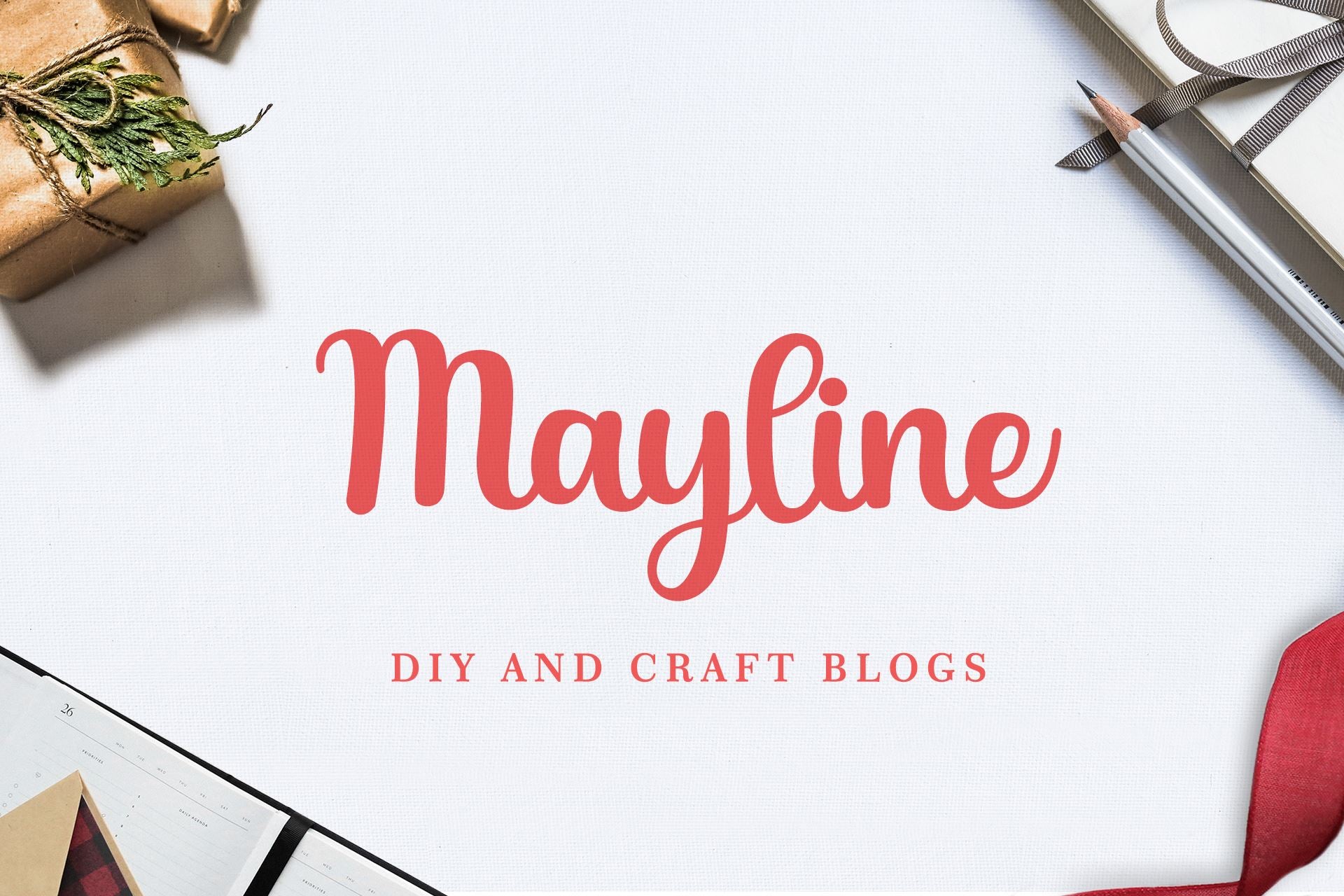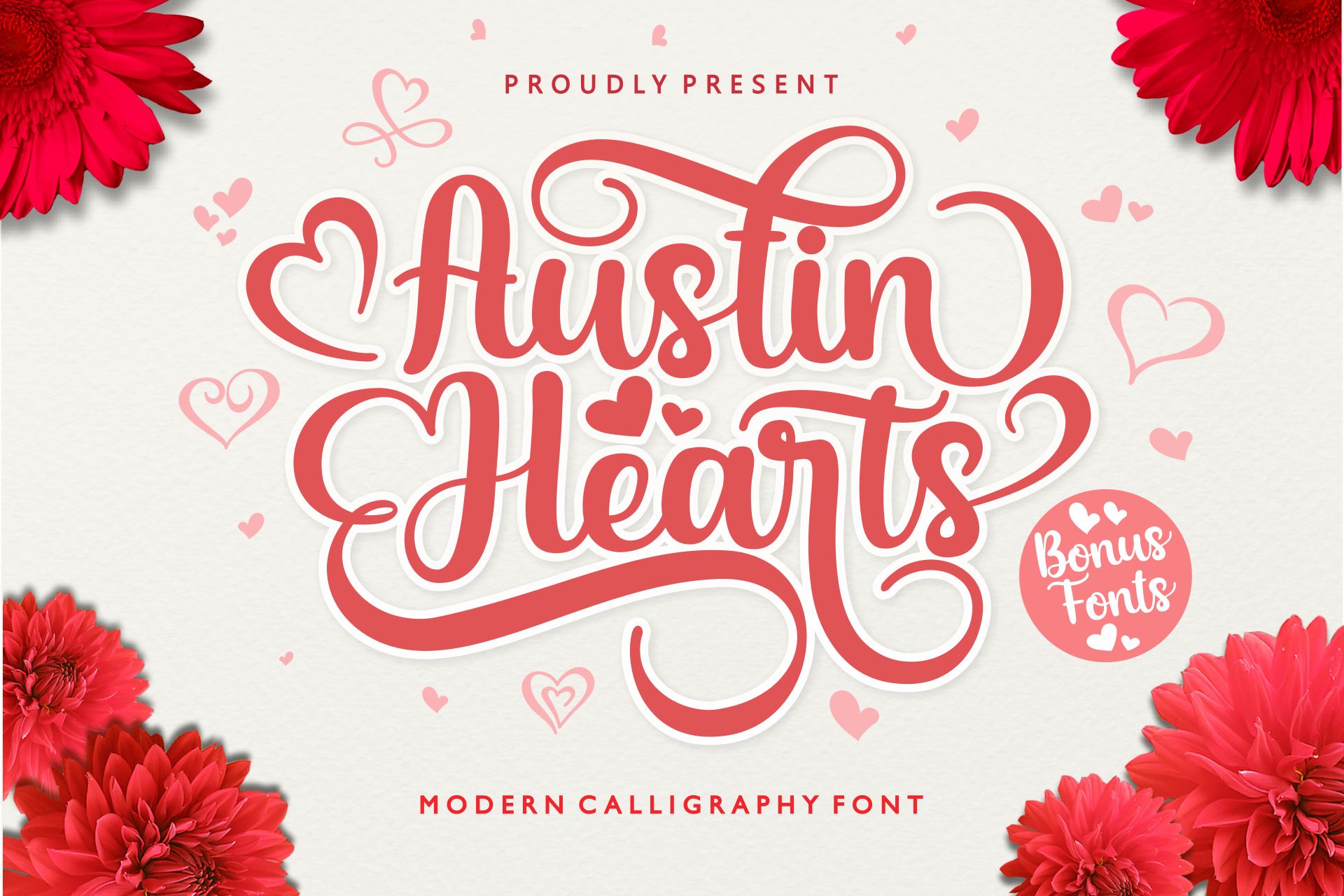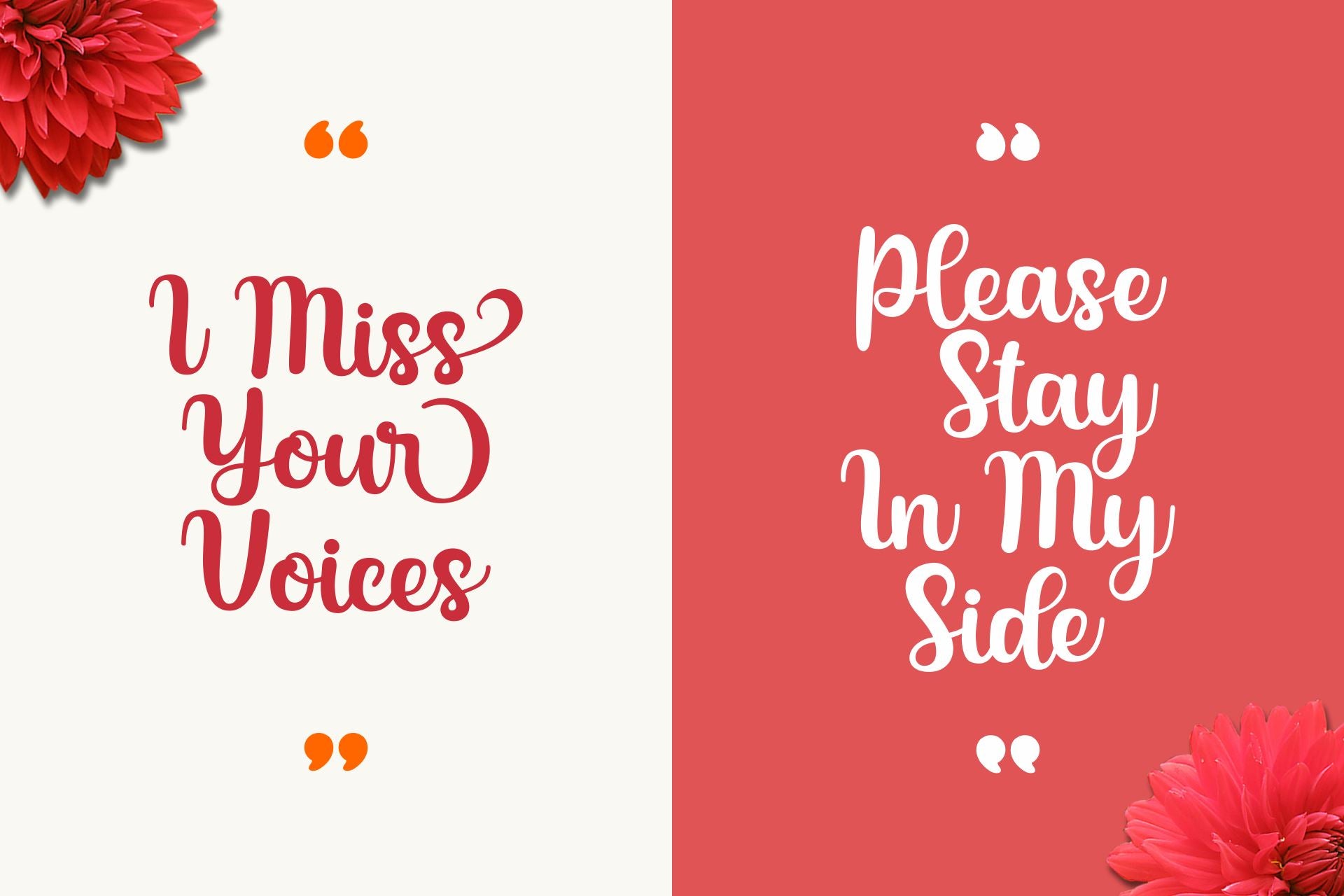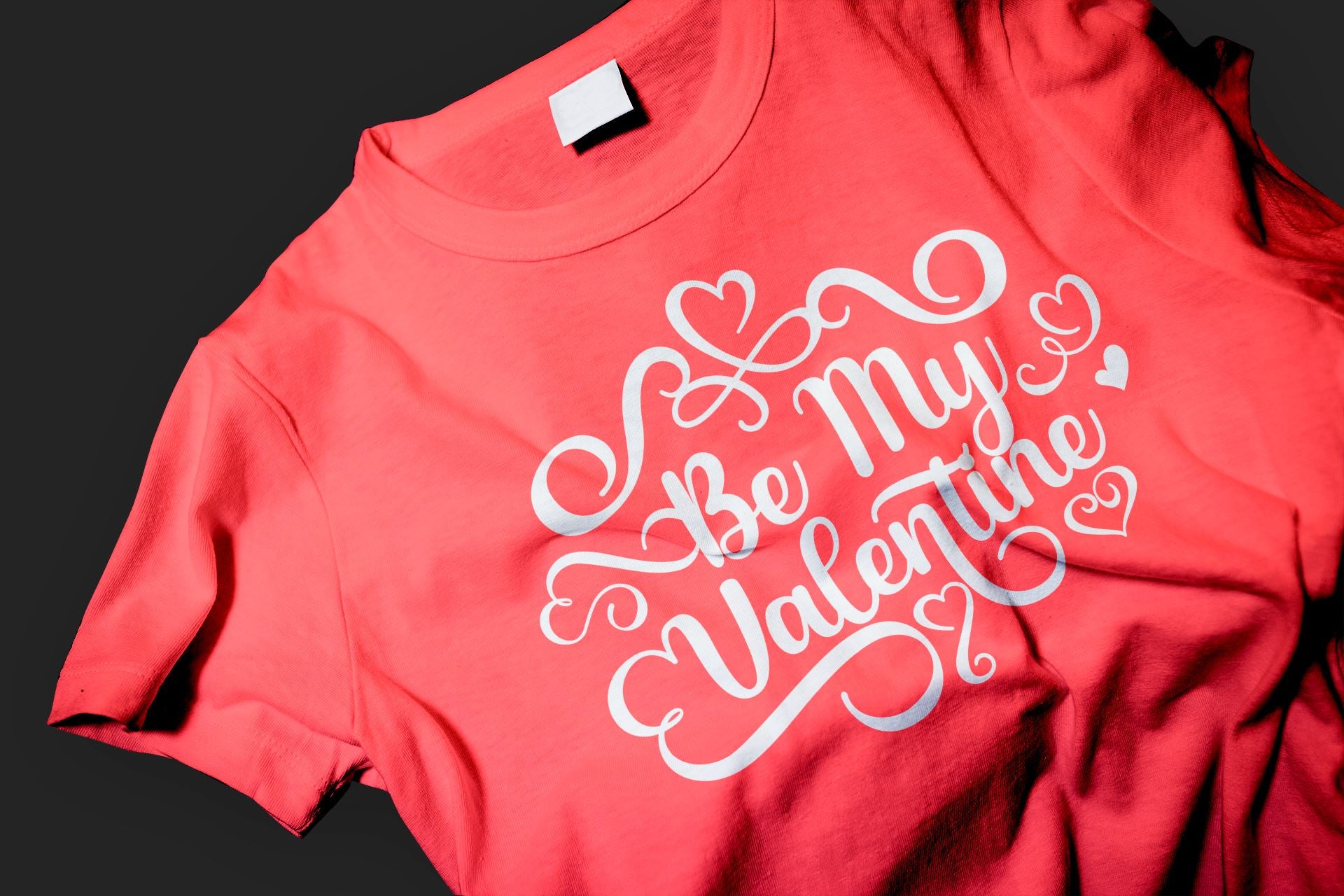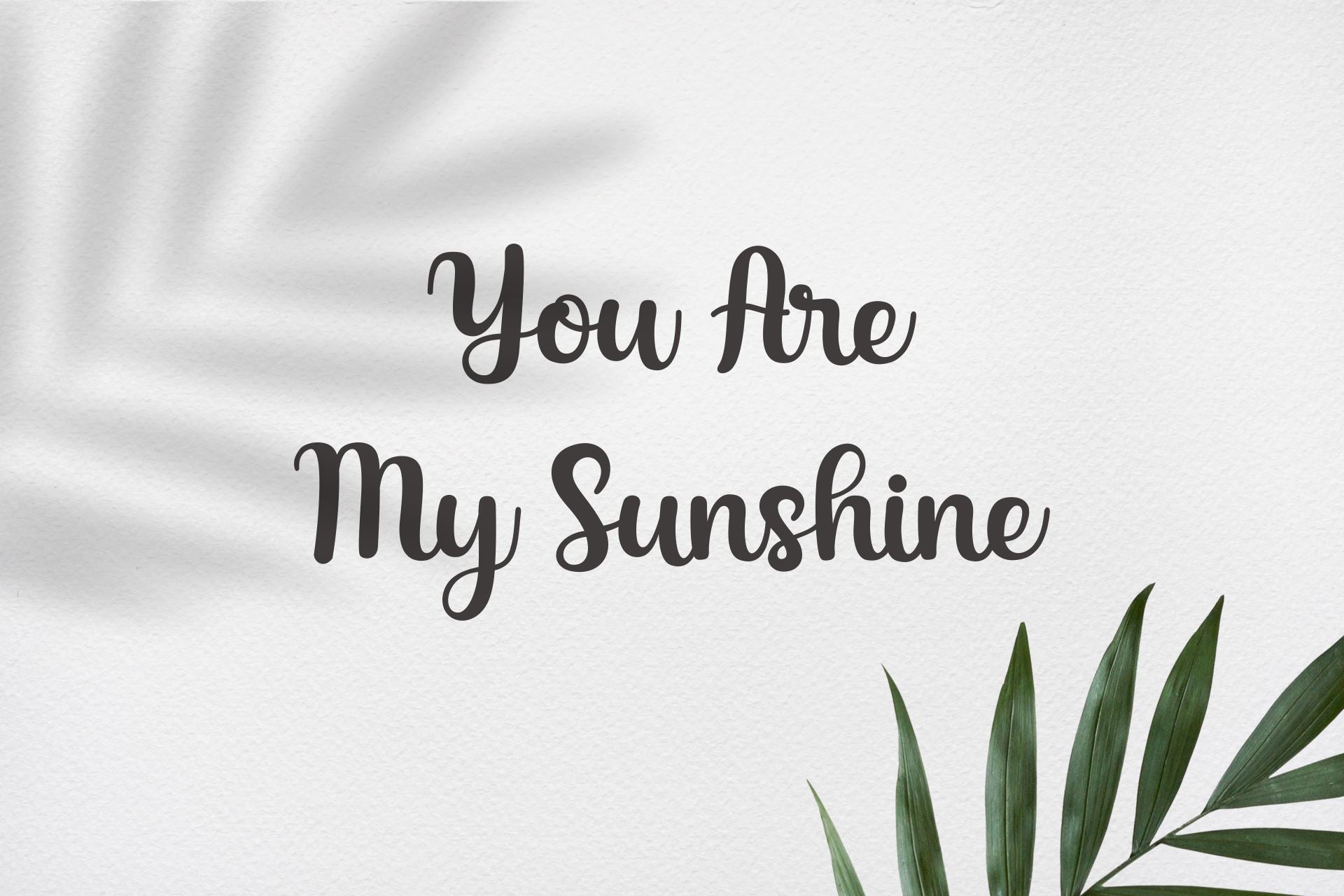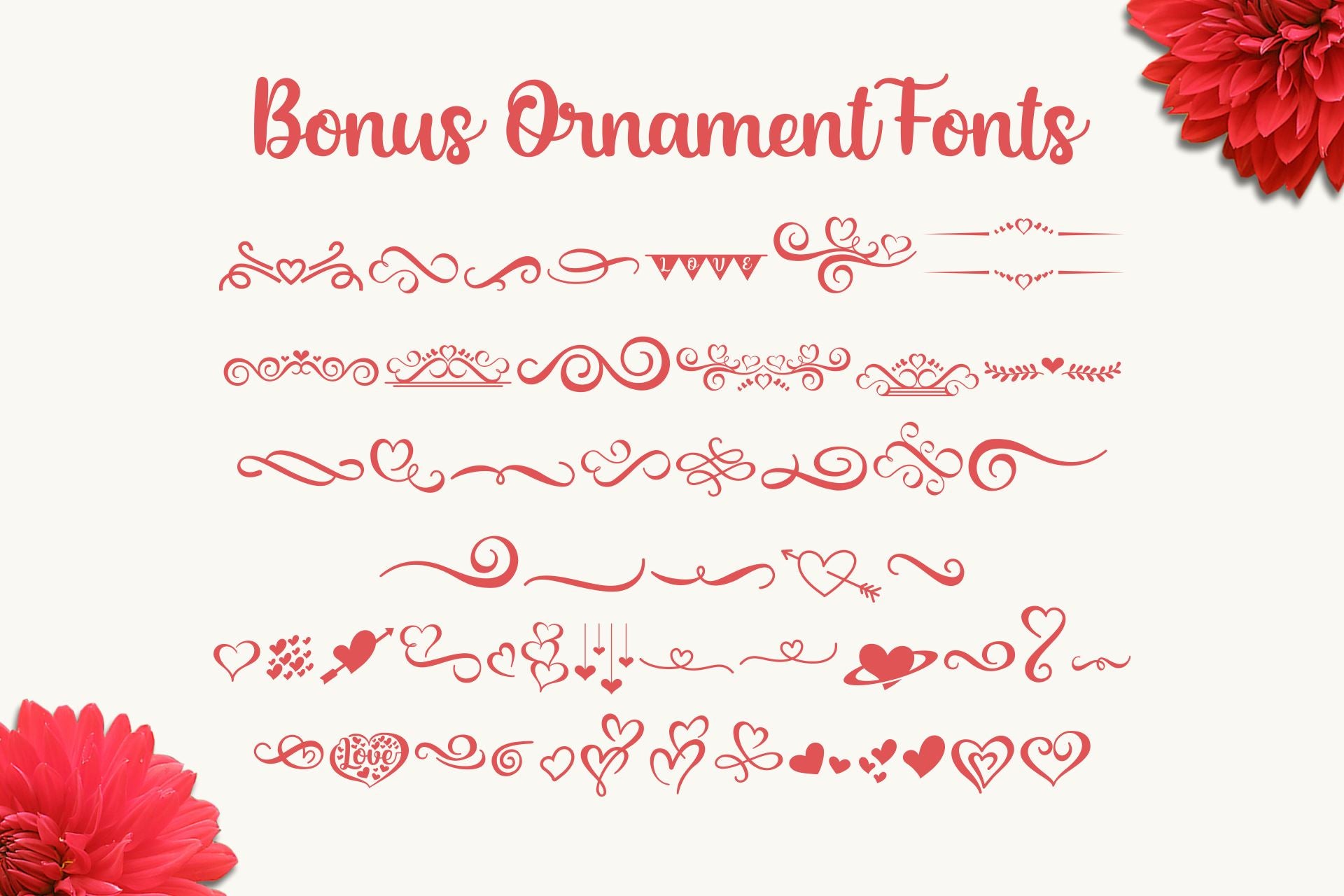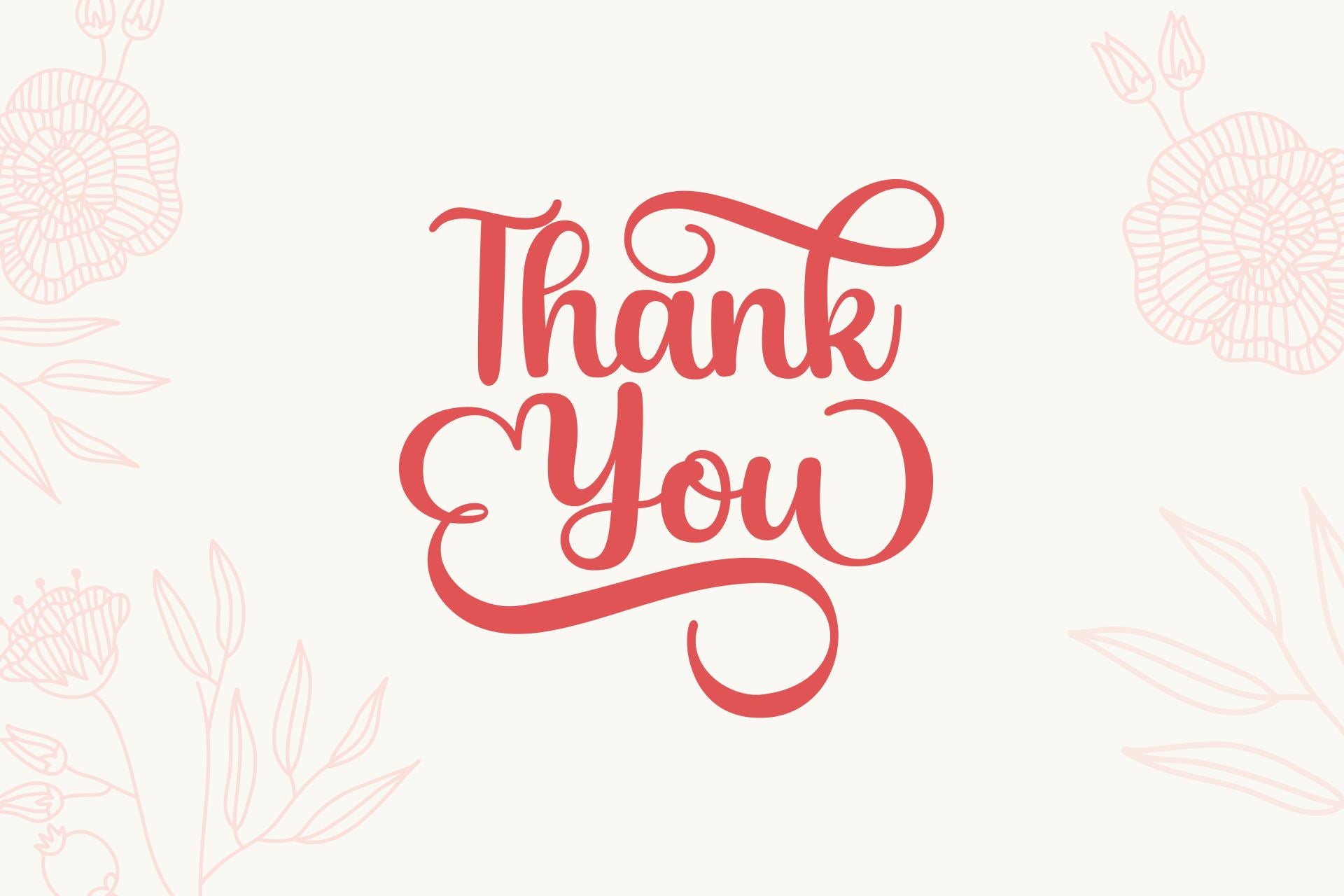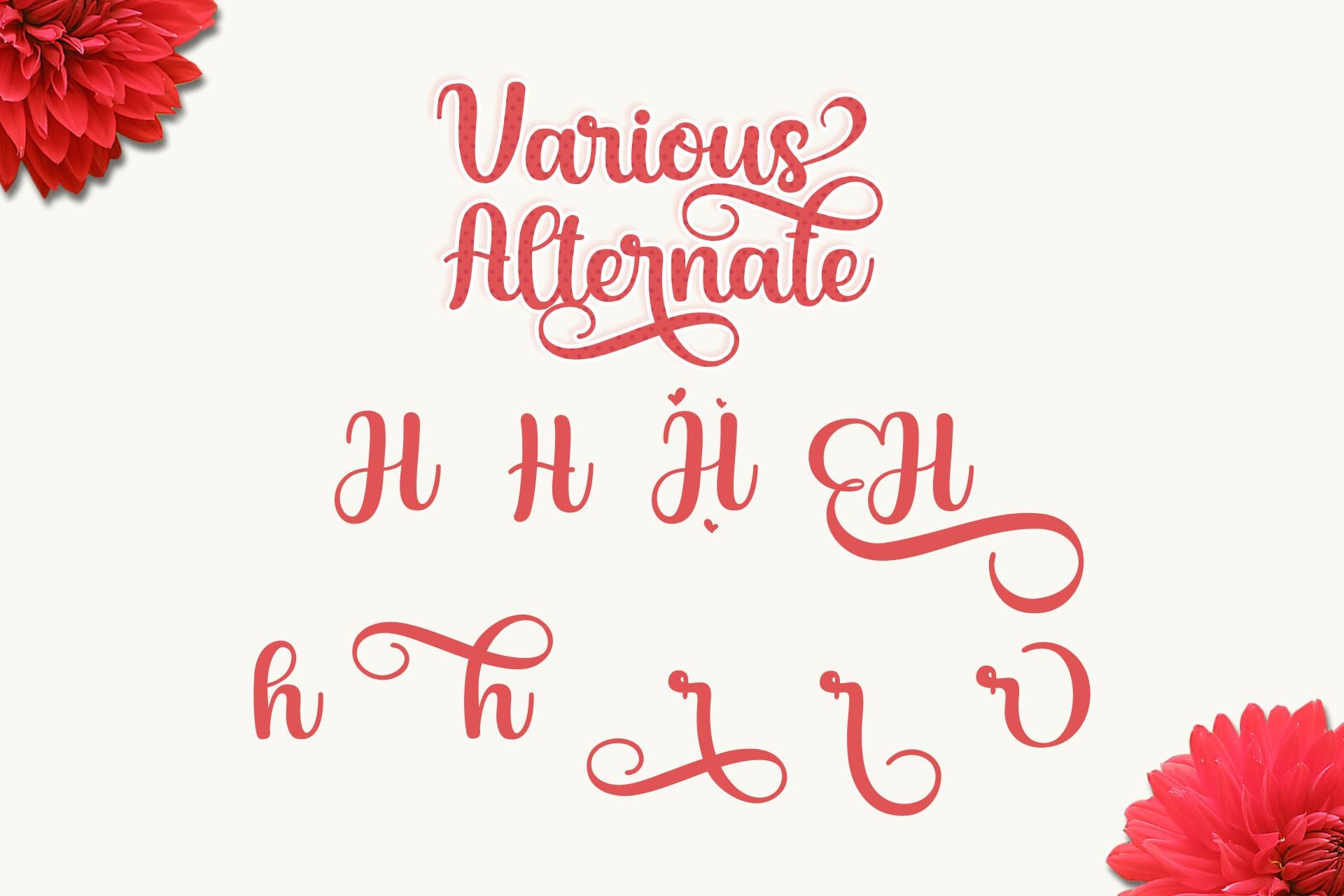
HomeScript FontsAustin Hearts Script Fonts Austin Hearts FacebookXPinterestWhatsApp 1 of 8 ... ... ... ... ... ... ... ... About Austin Hearts is an incredibly stunning script with beautiful letters and extravagant swashes. Fall in love with its romantic charm! DOWNLOAD NOW People also explored Greenling Font Snake Font Gracelove Font Sugary Pancake Tournedos Sageetha Font Cudly Bubblebee Font Logo Mock-up Pack Merry Christmas Monogram Font 306 0 TagsAustin Hearts Previous articleOmarta – Signature FontNext articleMeliana Script LEAVE A REPLY Cancel reply Comment: Please enter your comment! Name:* Please enter your name here Email:* You have entered an incorrect email address! Please enter your email address here Website: Save my name, email, and website in this browser for the next time I comment. Personal Use Free Nickainley Personal Use Free Read more about this font Aliqa Personal Use Free Read more about this font Sunflower Personal Use Free Read more about this font Mold Papa Personal Use Free Read more about this font BLOG Where to Buy American Fonts Online in 2024 Where to Buy American Fonts Online: The Ultimate Guide for 2024 Looking for the perfect American font to elevate your design projects? You're in the... How to Cut Any Font on Cricut: Convert a Font to SVG (Free) Top 7 Google Fonts Alternatives for Faster and Privacy-Friendly Web Design (2025) Transform Your Website: Elevate Your Typography with 7 Best Web Font Generators